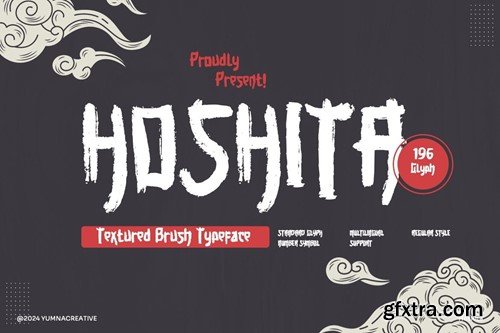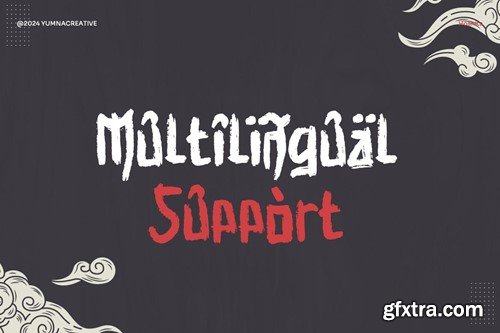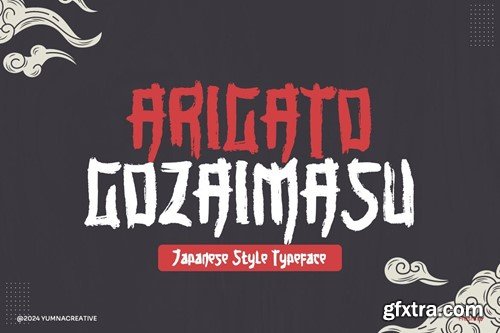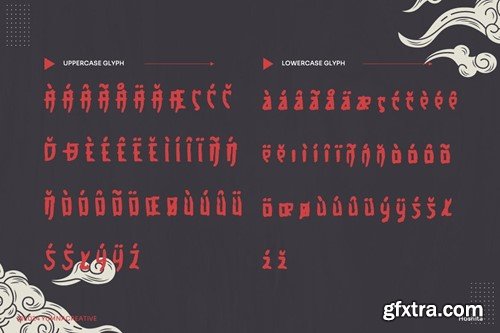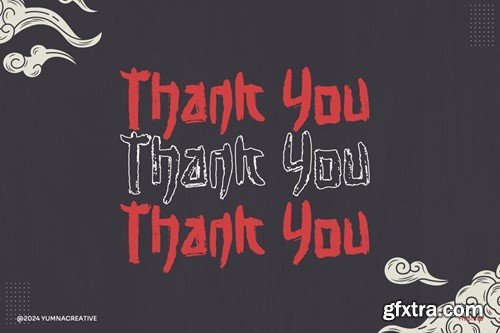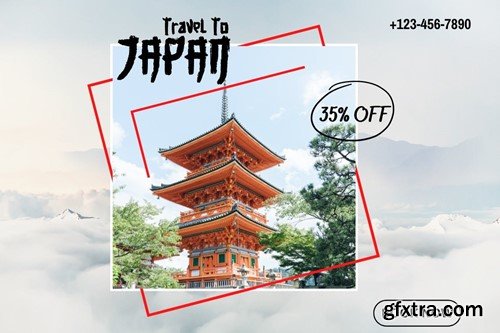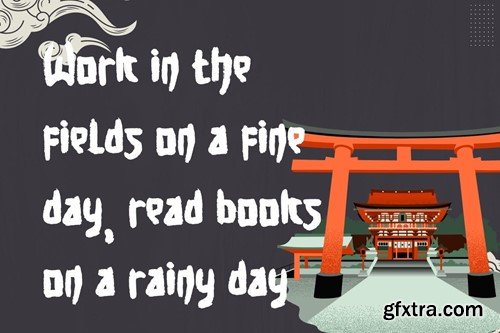
Introducing Hoshita - Textured Brush Font This Font is a delicate, elegant and flowing handwritten font. It has beautiful and well as a unique blend of ligatures a letter, so that the authors compose it with a and little swirly embedding, so that a modern font is formed and ready to make a statement by adding elegant and unique flair to your next design project. Add it to your most creative ideas and notice how it makes them come alive! FEATURES FILES INCLUDED Got any questions? Drop me a line and I'll be happy to answer!
• Uppercase & Lowercase
• Numbering & Punctuation
• Multilingual Supports